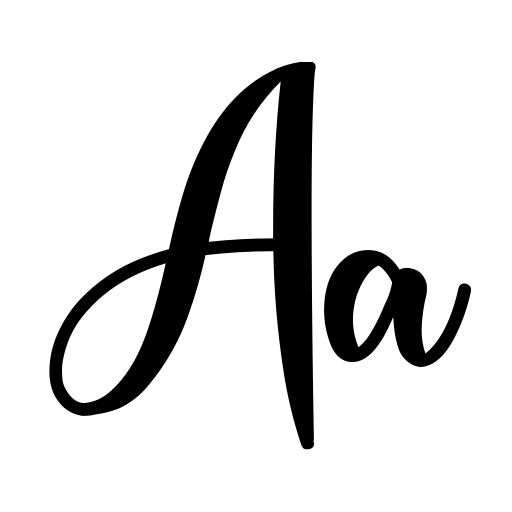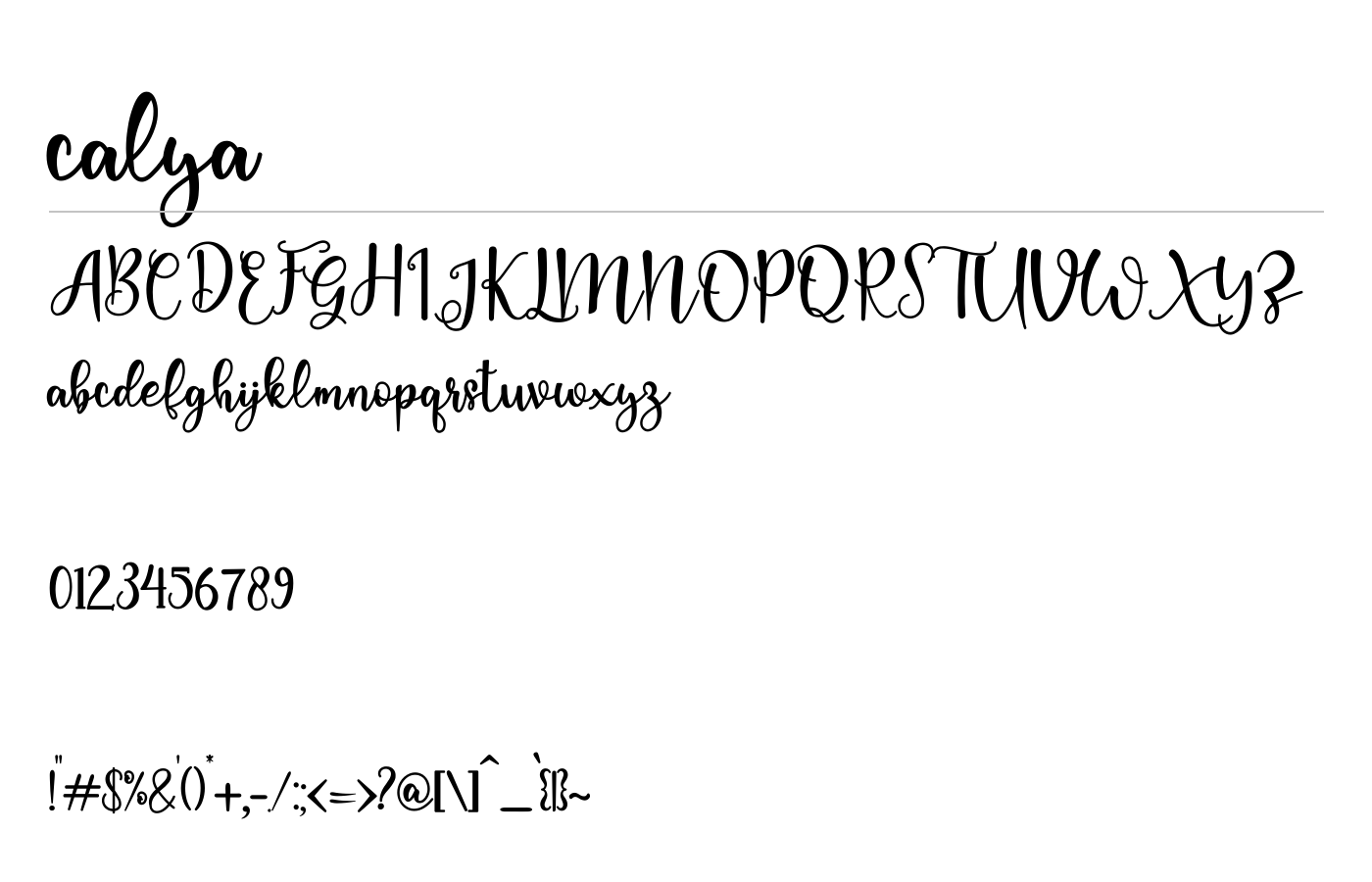
Calya is a playful and stylish script font with elegant, flowing letterforms that combine smooth curves and lively swashes, giving it a handwritten, personal touch. It features tall, narrow characters with a medium weight and whimsical uppercase letters, making it perfect for creative branding, invitations, and feminine or artistic designs that want to convey warmth and charm. With its distinctive, friendly look, Calya works beautifully for headlines, logos, and packaging where a unique, approachable personality is desired.
calya Font
About calya Font